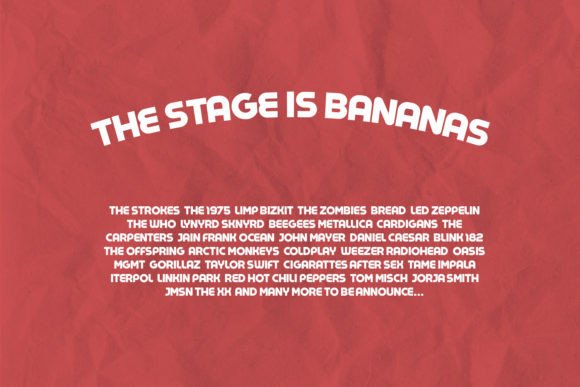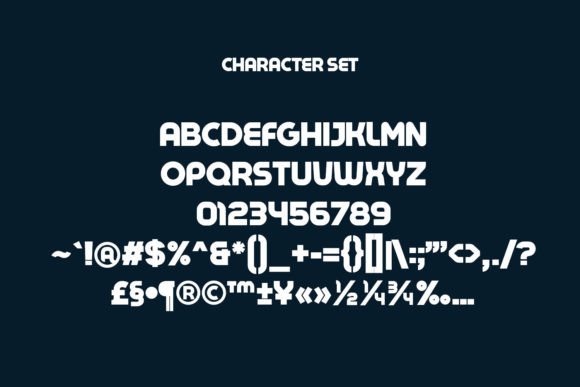
Introduction to Porka Font
Remember that moment when you stumble upon a design resource that sparks your creativity and elevates your project to the next level? For designers, finding the perfect font can be a game-changer. Imagine having a high-quality, versatile font that can add a touch of personality to your work, from social media posts to movie titles.
Enter the Porka Font, an all-caps Geometric sans display font that’s sure to make a statement. With its bold stroke and playful character, this font is perfect for designers looking to add a bit of whimsy to their creative project. And the best part? Porka Font supports over 100 languages, making it an excellent choice for designers working on multilingual projects.
Whether you’re working on a logo design, book title, or social media post, the Porka Font is a valuable addition to any designer’s toolkit. With its transparent background and free download option, you can experiment with this font without any limitations. In this article, we’ll delve deeper into the world of Porka Font and explore its many uses and benefits.
- High-quality design resource for creative projects, featuring a unique and elegant style.
- Includes a wide range of characters, including uppercase and lowercase letters, numbers, and punctuation marks, making it suitable for a variety of creative projects.
- Unique characteristics include a modern and minimalist aesthetic, making it perfect for branding, logos, and other design elements that require a touch of sophistication.
Honest Review: Porka Font
I recently stumbled upon the Porka Font, and I must say it’s a hidden gem in the world of design resources. This high-quality font is perfect for any creative project that requires a unique touch.
What works well about Porka Font is its clean and minimalist design. The transparent background makes it easy to overlay on any image, giving your design a seamless look. The font itself is also highly customizable, making it ideal for logos, branding, and marketing materials.
- ✨ Unique design that stands out from the crowd
- ✨ Highly customizable with a transparent background
- ✨ Perfect for creative projects that require a unique touch
However, I do have a few limitations to mention. The font may not be suitable for large block of texts, as it can become difficult to read. Additionally, the font’s unique design may not be suitable for all audiences, as some may find it too playful or gimmicky.
Overall, I’m impressed with the Porka Font, and I would highly recommend it to designers looking for a high-quality, free download. With its unique design and high level of customizability, it’s a valuable addition to any design resource library.
⚠️ Keep in mind that the font’s limitations may affect its suitability for certain projects, but overall, it’s a great choice for creative projects that require a unique touch.
Porka Font is commonly used in creative projects such as logos, graphics, and infographics. It’s also a great design resource for creating social media graphics, flyers, and brochures. With its high quality and transparent background, Porka Font is perfect for any project where you need a unique and engaging font.
To get the most out of Porka Font, experiment with different font sizes, colors, and combinations. Use it in conjunction with other design elements, such as images and graphics, to create a visually appealing design. You can also use Porka Font to create a consistent brand identity across all your marketing materials.